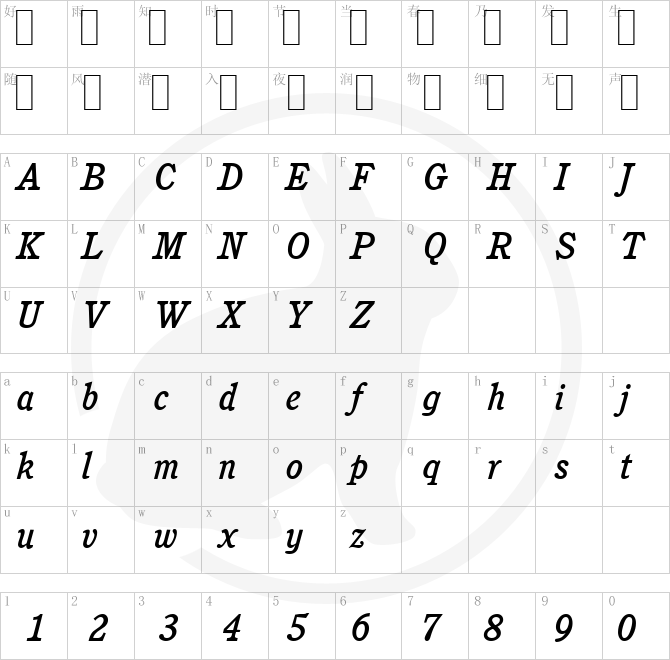
- Font Name:C851-Roman-Medium
- Subfamily:SoftMaker Software GmbH C851-Roman-Medium-Italic
- Full Name:C851-Roman-Medium-Italic
C851-Roman-Medium-Italic.ttf is a very beautiful artistic font, C851-Roman-Medium-Italic.ttf is widely used in the design and printing of various books and pictures,C851-Roman-Medium-Italic.ttf has a strong visual impact,C851-Roman-Medium-Italic.ttf is a commonly used font in newspapers, magazines and books, and is used in posters, e-commerce Poster design, store design, logo design, font design and other fields.C851-Roman-Medium-Italic.